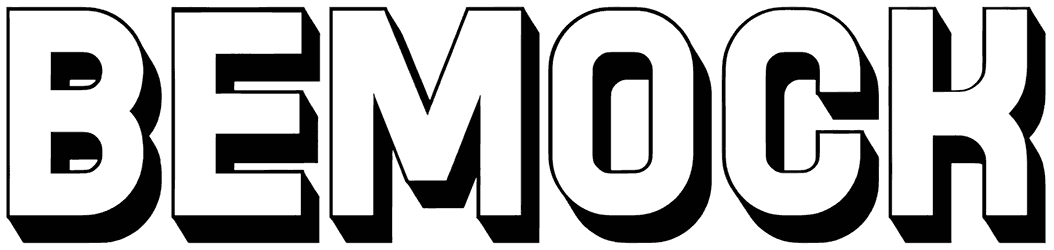
Bemock Font
For design projects that need to convey a beautiful idea through something fun and expressive, Bemock hits that sweet spot. This outline font contains characters that allow you to create innovative and technological designs and can double your strength in a serious and professional design space.
For designers interested in shadow fonts to create a natural effect in their writings, this font can become one of the star options in designing posters and advertisements, even without small letters.